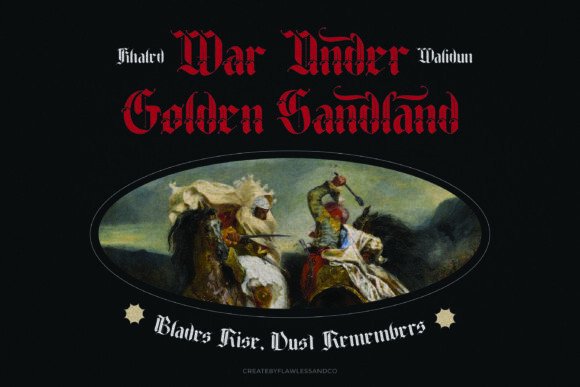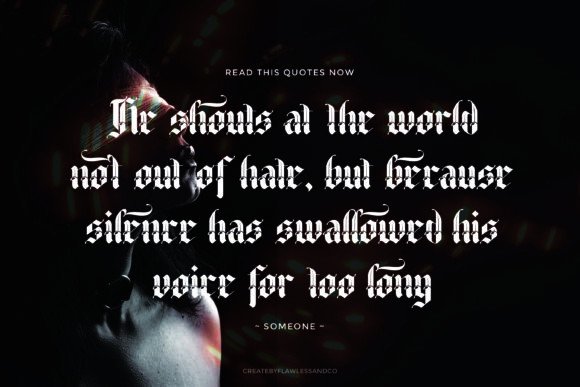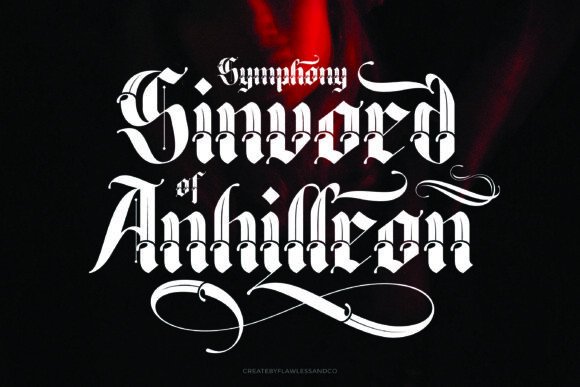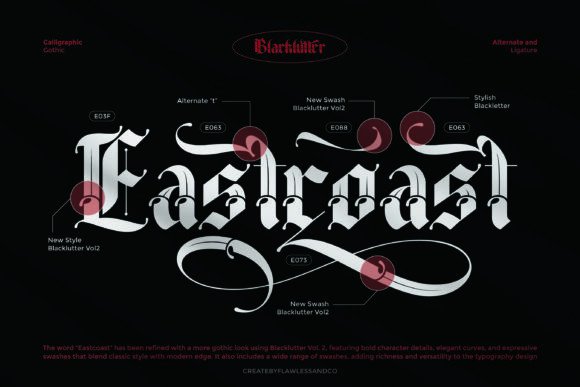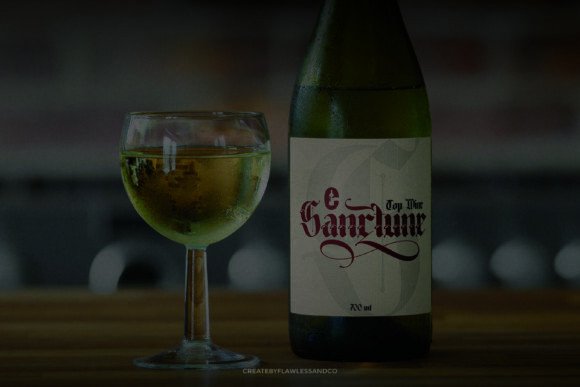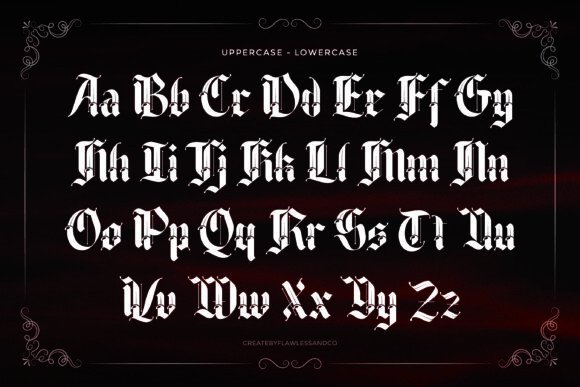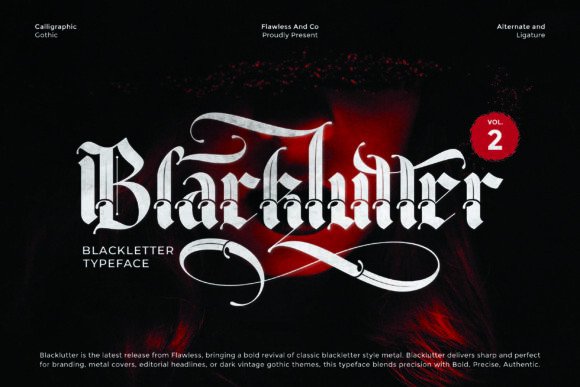
Unleash the Power of Blacklutter Vol2 Font: A Bold and Modern Blackletter Typeface
In the world of typography, a font can make or break a design. For designers and crafters looking for a bold and powerful statement, Blacklutter Vol2 font is an exceptional choice. This blackletter typeface seamlessly blends traditional Gothic style with a modern twist, making it perfect for projects that require strength, authority, and style.
What Makes Blacklutter Vol2 Stand Out?
Blacklutter Vol2 is characterized by its sharp edges, dramatic strokes, and distinctive letterforms. These features give it a commanding presence that can elevate any design. Whether you’re working on branding, logos, posters, merchandise, album covers, or even tattoo lettering, this font provides the perfect combination of elegance and ruggedness.
Key Features of Blacklutter Vol2 Font
- Bold and Powerful Design: The font’s bold and powerful design makes it ideal for headlines, titles, and any design element that needs to stand out.
- PUA-Encoded: Blacklutter Vol2 is PUA-encoded, which means you get effortless access to all glyphs, swashes, and alternate characters. This feature allows for easy customization of your designs.
- Versatile Usage: From branding and logos to posters, merchandise, album covers, and tattoo lettering, Blacklutter Vol2’s versatility knows no bounds.
- Modern Twist on Traditional Gothic Style: While rooted in traditional Gothic typography, Blacklutter Vol2 incorporates modern elements that make it suitable for contemporary designs.
Applications of Blacklutter Vol2 Font
The applications of Blacklutter Vol2 are vast and varied. Here are some of the most notable uses:
Branding and Logos
For businesses looking to make a bold statement, Blacklutter Vol2 can be a game-changer. Its authoritative presence can help convey strength and reliability, essential qualities for any brand.
Posters and Merchandise
Whether you’re designing posters for events or creating merchandise like t-shirts and stickers, Blacklutter Vol2’s bold and eye-catching design ensures your work will not go unnoticed.
Album Covers
Music album covers often require typography that resonates with the music’s genre and style. Blacklutter Vol2, with its Gothic and modern fusion, can add a compelling visual element to any album cover, especially for genres like rock, metal, and Gothic music.
Tattoo Lettering
For tattoo artists and clients looking for unique and meaningful typography, Blacklutter Vol2 offers a robust and stylish option. Its distinctive letterforms can make any tattoo design stand out.
Why Choose Blacklutter Vol2?
Choosing a font for your design project can be overwhelming, given the numerous options available. However, Blacklutter Vol2 stands out for several reasons:
- Unique and Memorable: Its distinctive design ensures your project will be memorable and impactful.
- Highly Customizable: With PUA encoding, you have access to a wide range of glyphs and alternate characters, allowing for extensive customization.
- Versatile: Suitable for a variety of design projects, from digital to print.
- Modern Yet Traditional: Offers a perfect blend of modern style and traditional Gothic typography.
Blacklutter Vol2 font is a powerful tool for designers and crafters aiming to add a bold and authoritative touch to their projects. Its unique blend of traditional Gothic style and modern elements, combined with its versatility and customization options, makes it an excellent choice for a wide range of applications. Whether you’re working on branding, posters, merchandise, album covers, or tattoo designs, Blacklutter Vol2 is sure to make your work stand out.
Embrace the power and style of Blacklutter Vol2 font in your next design project and experience the impact of bold and beautiful typography.